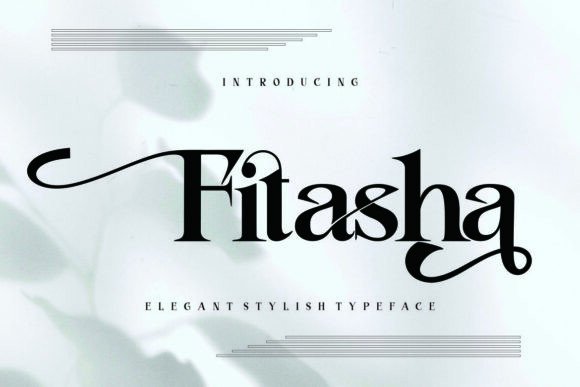
Introducing Fitasha Font: The Epitome of Elegance and Sophistication
In the world of typography, a font can make or break the visual appeal of a project. For those seeking an elegant and classy look, Fitasha Font is an excellent choice. This stunning serif font boasts a delicate balance of thin and thick lines, making it perfect for a wide range of applications. In this article, we’ll dive into the world of Fitasha Font, exploring its features, benefits, and uses.
What is Fitasha Font?
Fitasha is an elegant serif font, carefully crafted to add a touch of sophistication to any project. Its delicate and classy look makes it an ideal choice for designers, artists, and writers seeking to elevate their work. With a balanced and varied design, Fitasha Font strikes the perfect chord between thin and thick lines, ensuring that your text is both readable and visually appealing.
Key Features of Fitasha Font
- Elegant Serif Design: Fitasha Font features a classic serif design, perfect for creating a sophisticated and refined look.
- Delicate and Classy: The font’s delicate lines and curves create a classy and elegant appearance, suitable for high-end projects.
- Balanced and Varied: Fitasha Font strikes a perfect balance between thin and thick lines, ensuring that your text is both readable and visually appealing.
- High Readability: The font’s clear and concise design makes it easy to read, even at small sizes.
Benefits of Using Fitasha Font
Fitasha Font offers numerous benefits to designers, artists, and writers. Some of the most significant advantages include:
- Enhanced Visual Appeal: Fitasha Font adds a touch of elegance and sophistication to any project, making it perfect for high-end clients.
- Improved Readability: The font’s clear and concise design ensures that your text is easy to read, reducing eye strain and improving comprehension.
- Versatility: Fitasha Font is suitable for a wide range of applications, from print materials to digital projects.
- Time-Saving: With Fitasha Font, you can create professional-looking projects quickly and efficiently, saving you time and effort.
Uses of Fitasha Font
Fitasha Font is an incredibly versatile font, suitable for a wide range of applications. Some of the most popular uses include:
- Print Materials: Fitasha Font is perfect for creating elegant and sophisticated print materials, such as brochures, flyers, and business cards.
- Digital Projects: The font is also suitable for digital projects, including website design, social media graphics, and email marketing campaigns.
- Branding and Identity: Fitasha Font can be used to create a cohesive brand identity, including logos, letterheads, and packaging.
- Advertising and Marketing: The font’s elegant design makes it perfect for advertising and marketing materials, such as billboards, posters, and magazine ads.
Tips for Using Fitasha Font
To get the most out of Fitasha Font, follow these expert tips:
- Pair with Other Fonts: Fitasha Font pairs well with other fonts, such as sans-serif fonts, to create a visually appealing contrast.
- Adjust Font Sizes: Experiment with different font sizes to create a clear hierarchy of information and improve readability.
- Use Colors Wisely: Choose colors that complement the font’s elegant design, such as neutral tones or rich jewel tones.
- Experiment with Ligatures: Fitasha Font features ligatures, which can add an extra touch of elegance to your text.
In conclusion, Fitasha Font is an exceptional choice for designers, artists, and writers seeking to add a touch of elegance and sophistication to their projects. With its delicate and classy design, balanced and varied lines, and high readability, Fitasha Font is perfect for a wide range of applications. By following the tips outlined in this article, you can unlock the full potential of Fitasha Font and create stunning, professional-looking projects that leave a lasting impression.